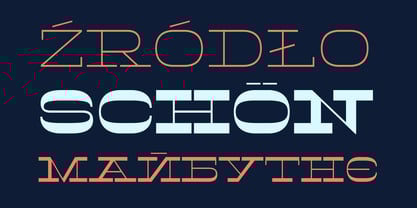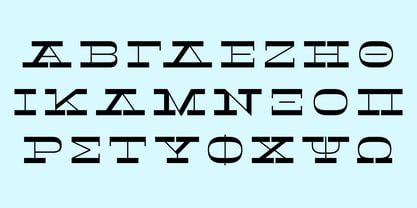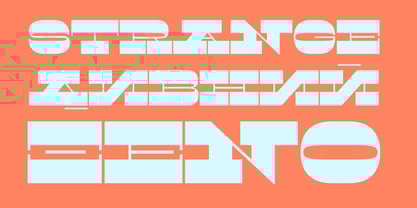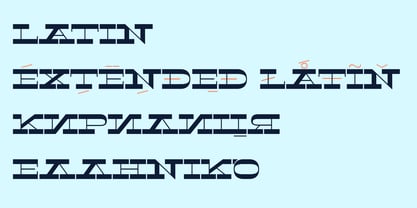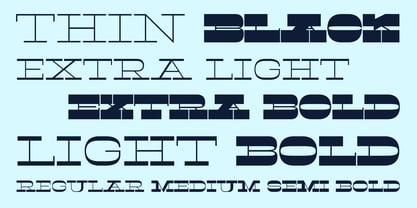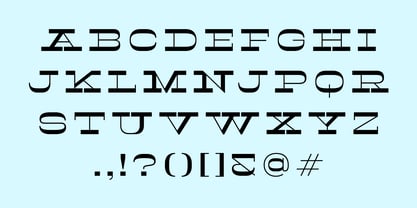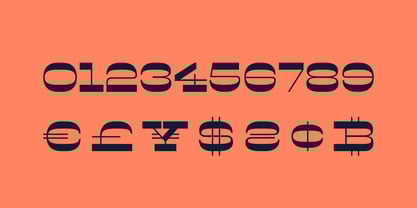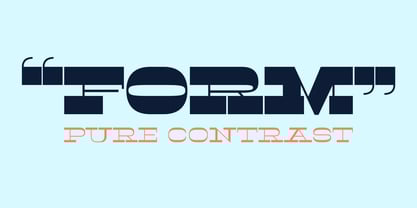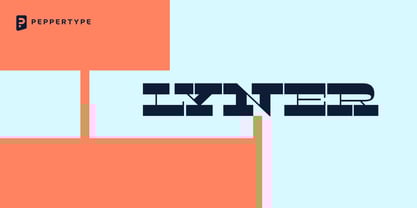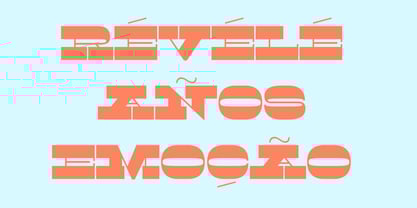
Lyner
The Lyner Font Family was designed by Oleh Lishchuk and published by Pepper Type. Lyner contains 9 styles and family package options. More about this family
Lyner is an expressive reverse-contrast slab serif designed for bold, unconventional typography. Its distinctive logic of strokes - thick horizontals and thin verticals - creates a rhythm that feels both rooted in wild west aesthetics and refreshed by modern typographic experimentation.
The family comes in 9 weights, from Thin to Black, allowing a wide range of moods: from refined delicacy to monumental power. Oversized slabs add confidence and geometric solidity, while the reverse contrast injects a striking, almost architectural personality.
With support for Latin, Cyrillic, and Greek, this typeface is ready for international projects and cross-cultural communication. Perfect for posters, branding, editorial work, music artwork, and digital interfaces - anywhere you want letters to shout with presence and energy.